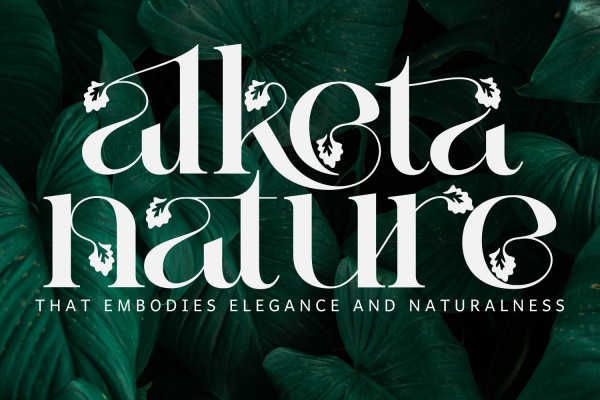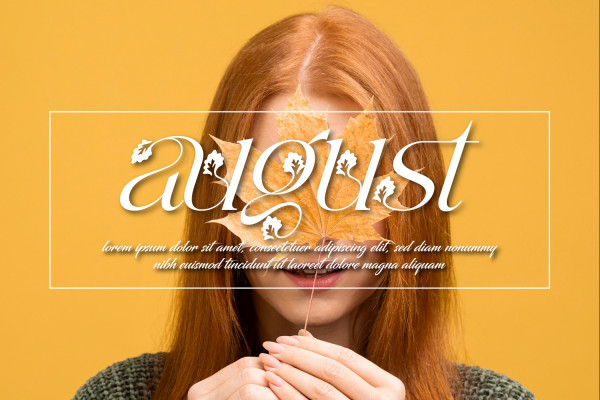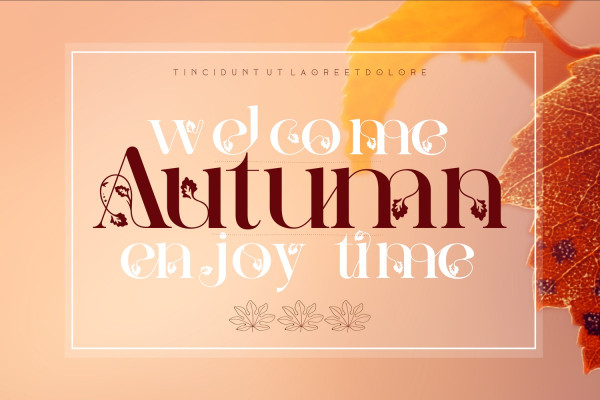
Alketa Nature Font
Alketa Nature Font – a delicate floral font with flowers and leaves, that features a nature concept with leaf swashes. It’s an elegant and feminine font suitable for all kinds of headlines and decorative purpouses. Alketa Nature features a unique style and will add a friendly feel to your upcoming projects. Get inspired by its authentic feel and use it to create beautiful poster, product packaging or logo and many more!
Alketa was built with OpenType features and includes 100 ligatures, alternate, numbers, punctuation, and it also supports other languages.